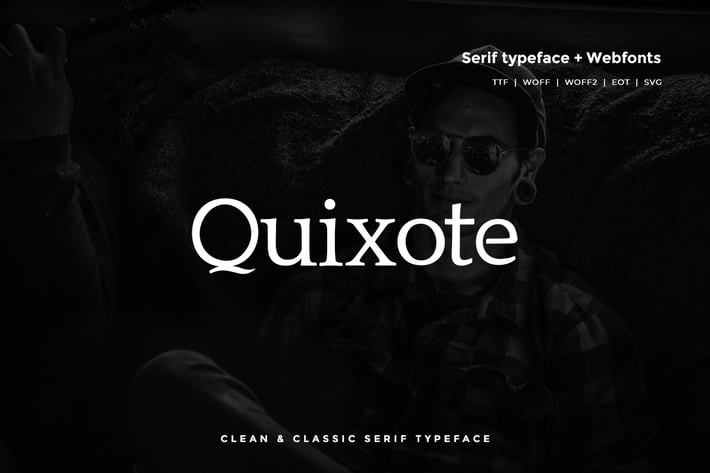
Quixote - Classic Serif Typeface + WebFont
Quixote Typeface
Classic serif typeface from Webhance, which delivers a remarkable unique typography style. The pack also includes OTF, TTF and Web Fonts (all EOT, SVG, TTF, WOFF included).
Font Designed and Crafted by Maya G, Distributed by Webhance Studio.